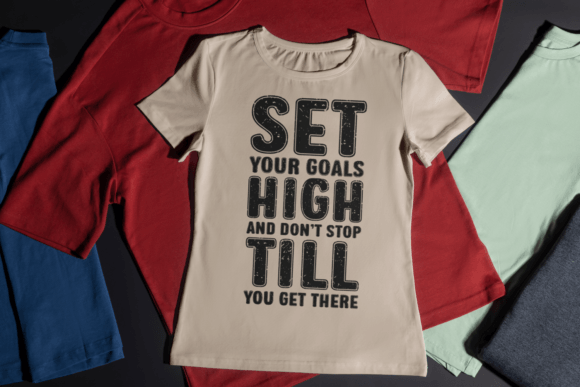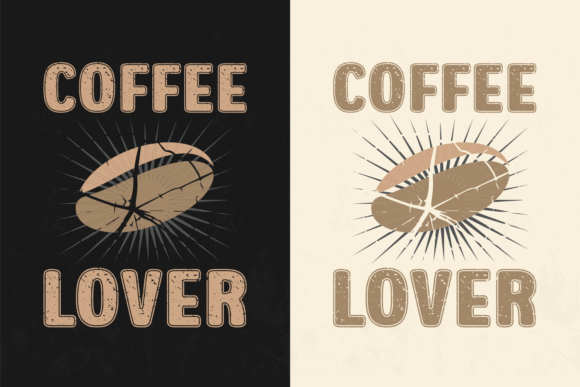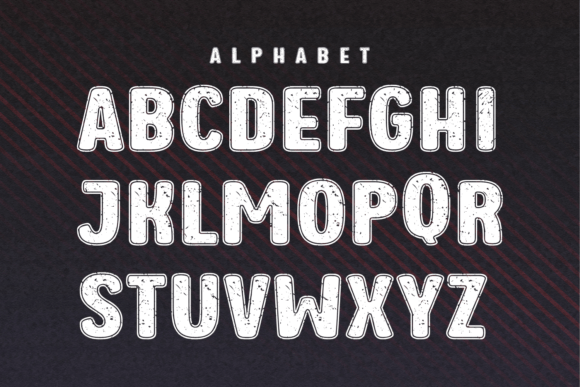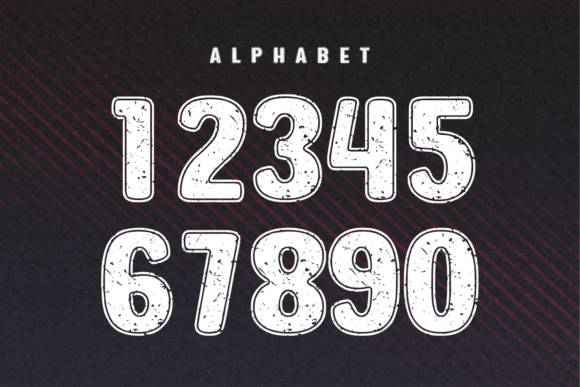
Unveiling “Abcd Grunge” – A Display Font with Vintage Charm and Grunge-Induced Distress
In the realm of typography, few fonts manage to capture the essence of nostalgia and edginess simultaneously. However, “Abcd Grunge” breaks the mold by seamlessly blending vintage charm with a grunge-induced distress, making it a standout in the world of display fonts. This unique typeface is poised to revitalize your creative projects, offering a distinctive character that sets it apart from more conventional fonts.
The Essence of “Abcd Grunge”
Rooted in nostalgia, “Abcd Grunge” draws inspiration from the past, evoking memories of a bygone era. Its rugged, distressed appearance gives it an edgy vibe that is hard to ignore. This font isn’t just a collection of letters; it’s an art piece that brings a sense of history and character to any project it’s part of. Whether you’re working on a logo, poster, website, or T-shirt design, “Abcd Grunge” adds a layer of depth and personality that is sure to captivate your audience.
One of the most significant advantages of “Abcd Grunge” is its versatility. Its innate sense of character makes it a fabulous match for a variety of applications. For logos, it provides a unique and memorable identity that can help brands stand out. When used in posters, it adds an element of drama and allure, drawing viewers in with its rugged charm. For websites, “Abcd Grunge” can be used to create headings or titles that are both eye-catching and reflective of the site’s personality.
T-Shirt Designs and Beyond
The rugged essence of “Abcd Grunge” also makes it exceptionally suitable for T-shirt designs. In a market saturated with generic and bland apparel, incorporating this font into your designs can help create products that are not only visually appealing but also carry a certain attitude and edge. The distressed look of “Abcd Grunge” gives T-shirt designs a worn, vintage feel that resonates with audiences looking for clothing with character.
Incorporating “Abcd Grunge” into Your Projects
- Pair it with solids: Combining “Abcd Grunge” with solid colors or backgrounds can enhance its visibility and make it pop.
- Experiment with textures: Since “Abcd Grunge” has a naturally distressed look, experimenting with different textures can add another layer of depth to your designs.
- Play with sizes: The font’s versatility means it looks great in various sizes. Don’t be afraid to experiment with different sizes to see what works best for your project.
“Abcd Grunge” is more than just a font; it’s a statement piece for your creative endeavors. Its unique blend of vintage charm and grunge-induced distress gives it a timeless allure that can elevate any project. Whether you’re a designer looking for a distinctive typeface or a crafter seeking to add character to your creations, “Abcd Grunge” is an excellent choice. By incorporating this font into your work, you’ll not only give it a unique identity but also ensure that it leaves a lasting impression on your audience. Rest assured, the impact will be nothing short of impressive.
In conclusion, “Abcd Grunge” stands out as a remarkable display font that can add a dash of vintage charm and grunge-induced distress to your projects. Its versatility, character, and edgy vibe make it an invaluable asset for designers and crafters looking to create work that stands out. Embrace “Abcd Grunge” and watch your creative endeavors transform into impressions of timeless allure.